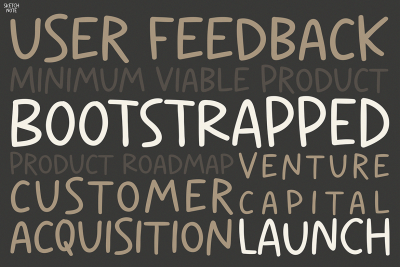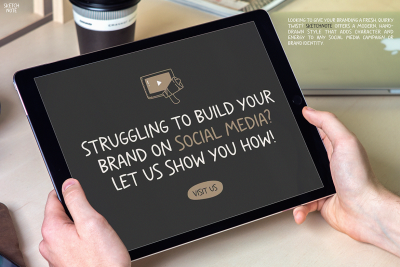
Cute Font SKETCHNOTE is the perfect typeface to add charm and personality to your digital designs. Not only is it visually appealing, but it also brings a warm, playful character that sets your content apart. Its hand-drawn style, with slightly uneven strokes, gives a natural and casual look. Because of this, it adds a human touch to every word, making your message feel more personal and engaging.
Moreover, SKETCHNOTE isnโt just about looks. Its excellent readability makes it suitable for both headings and body text. You can combine uppercase and lowercase letters seamlessly. Even though it leans toward a fun, informal vibe, it maintains clarity and structure. Therefore, itโs a font that feels creative without sacrificing professionalism. You can use it in various formatsโwhether digital or printโand it still looks amazing. For example, try it on posters, e-learning modules, or Instagram stories to see its charm shine.
Cute Font SKETCHNOTE Perfect For:
Cute Font SKETCHNOTE is perfect for anyone who wants to bring warmth, creativity, and friendliness into their designs. Itโs especially ideal for:
Teachers and Educators: Enhance lesson plans, slides, or digital classrooms with a more personal feel.
Content Creators and Influencers: Make your online posts stand out in a sea of templates.
Designers and Brand Builders: Add a soft, approachable touch to branding materials or marketing content.
Crafters and Hobbyists: Use it for digital scrapbooks, printable quotes, or handmade card designs.
Students: Create school projects and visual reports that look neat and eye-catching.
In short, this font adapts easily to anyone who values creativity and emotional connection in their visual storytelling.